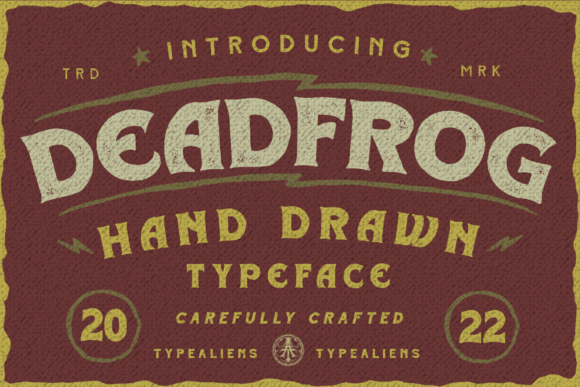
In the realm of typography, where letters dance and stories unfold, Deadfrog Font emerges as a masterpiece, a symphony of bold strokes and vintage allure. Crafted with meticulous care by the artisans at TypeAliens, Deadfrog is a serif font that transcends the boundaries of ordinary, captivating you with its timeless charm.
At its core, Deadfrog is a font of strength and character. Its thick, unwavering lines exude a sense of authority, while its underlying grunge texture adds a touch of ruggedness, a whisper of history. This unique blend of boldness and vintage appeal makes Deadfrog the perfect choice for designs that demand attention, projects that seek to make a lasting impression.
Picture this: a roaring motorcycle thunders down the open road, its sleek silhouette cutting through the wind. Deadfrog, with its bold, assertive strokes, captures the raw power and untamed spirit of the biker lifestyle. Its vintage texture evokes a sense of nostalgia, a longing for the days of old, when motorcycles were more than just machines, they were symbols of freedom and adventure.
But Deadfrog's versatility extends far beyond the world of motorcycles. Its bold, commanding presence lends itself effortlessly to a myriad of design applications. Envision a magazine headline that leaps off the page, demanding your attention, or a poster that captivates passersby with its striking visuals. Deadfrog has the power to transform ordinary designs into extraordinary creations, leaving an indelible mark on the minds of your audience.